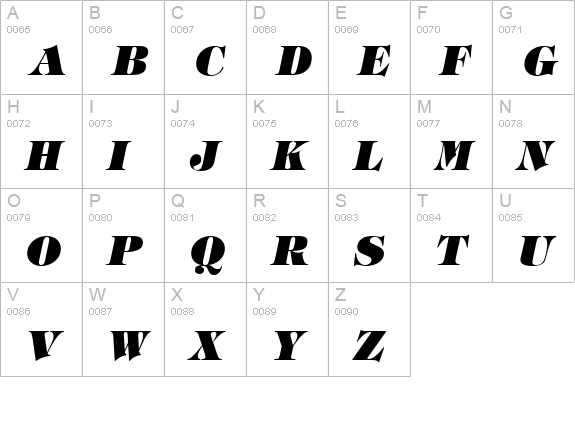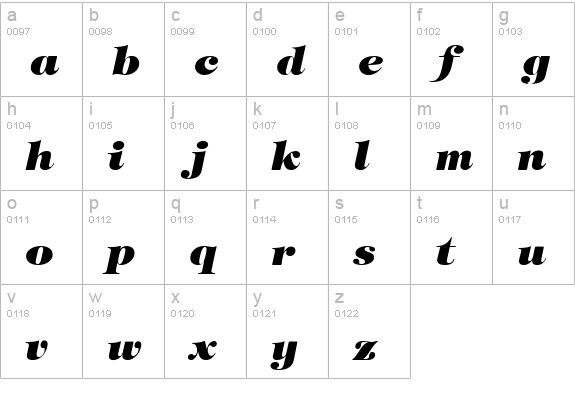
Tringland Heavy Italic Font Details
Tringland Heavy Italic is a heavy, high-impact, italic variant in the Tringland typeface family \xE2\x80\x94 well suited to high-impact headlines, posters, and display advertising.
Tringland Heavy Italic font is a bold and dynamic typeface that effortlessly commands attention. With its strong and slanted letterforms, this font exudes a sense of power and confidence. It is the perfect choice for projects that require a touch of elegance combined with a bold statement. Designed with meticulous attention to detail, Tringland Heavy Italic is a versatile font that can be used in a variety of creative applications. Whether you are designing a logo, creating eye-catching headlines, or crafting impactful branding materials, this font will elevate your work to new heights. The unique characteristics of Tringland Heavy Italic make it an excellent choice for both digital and print designs. Its clean lines and striking angles ensure legibility even at smaller sizes, while its bold presence shines through when used for larger display purposes. But what makes Tringland Heavy Italic even more remarkable is that it is available for free. Yes, you read that right! This fantastic font can be freely downloaded at FontsMarket.com, where you can easily access and start using it for your creative projects. So, why wait? Take advantage of this fantastic opportunity to enhance your designs with Tringland Heavy Italic font. Download it now from FontsMarket.com and unleash its bold and captivating presence in your next project. Let your creativity soar and make a lasting impression with this remarkable typeface.